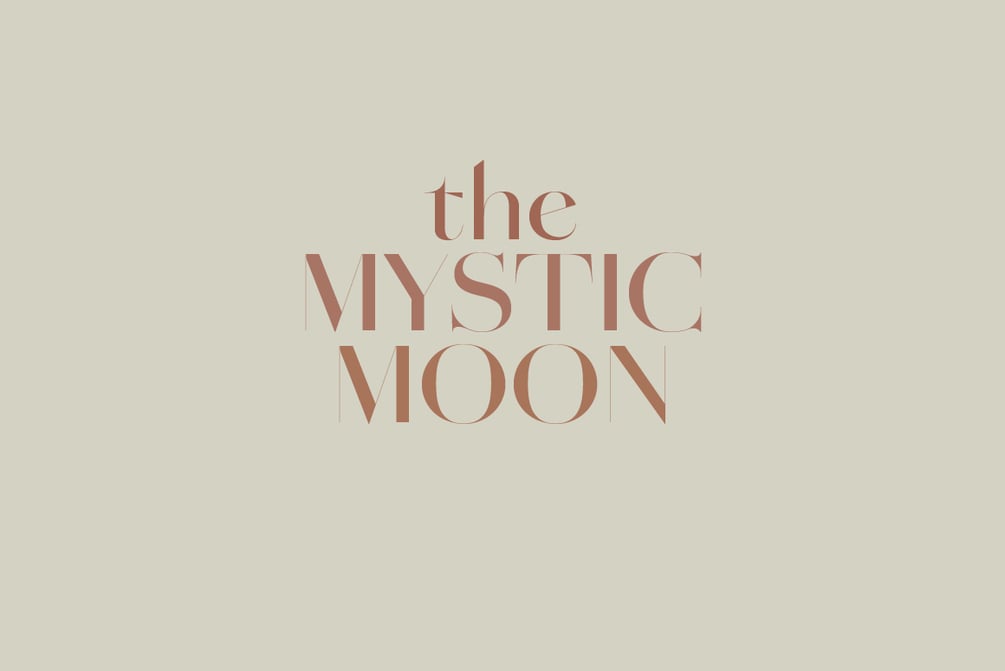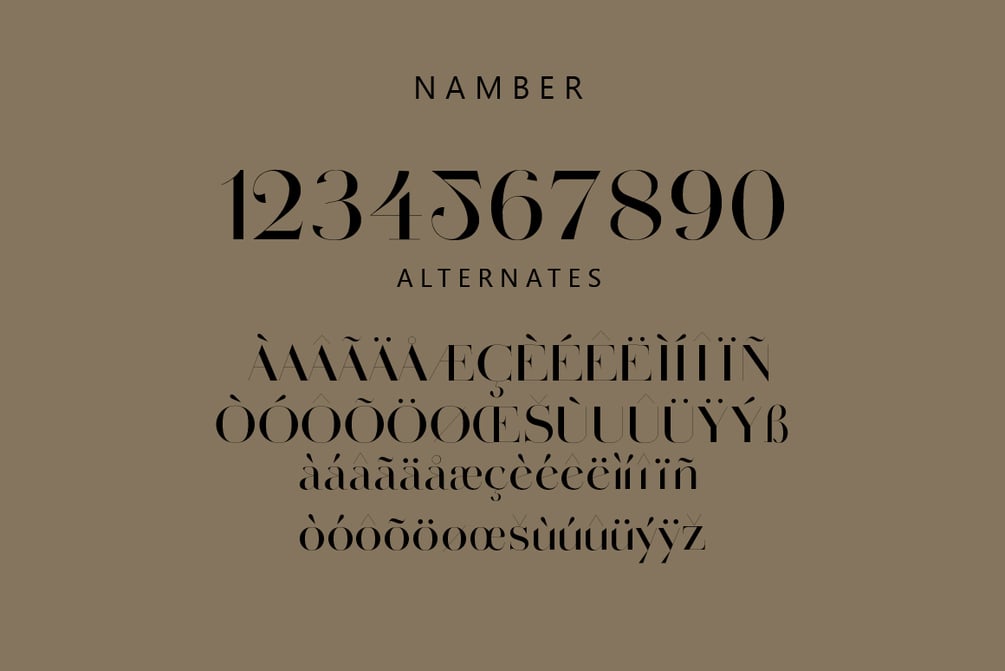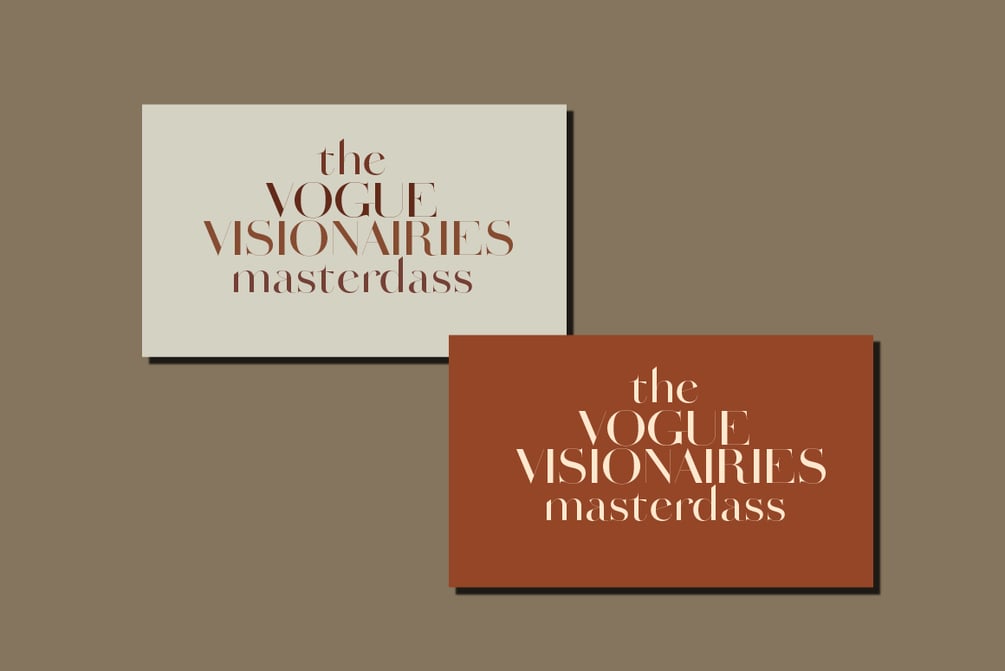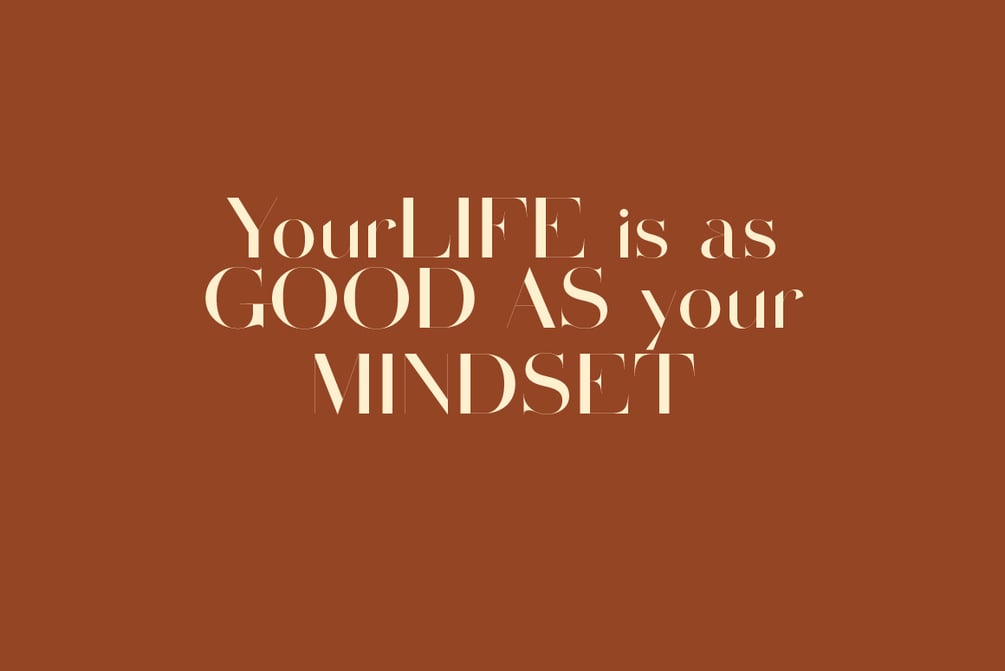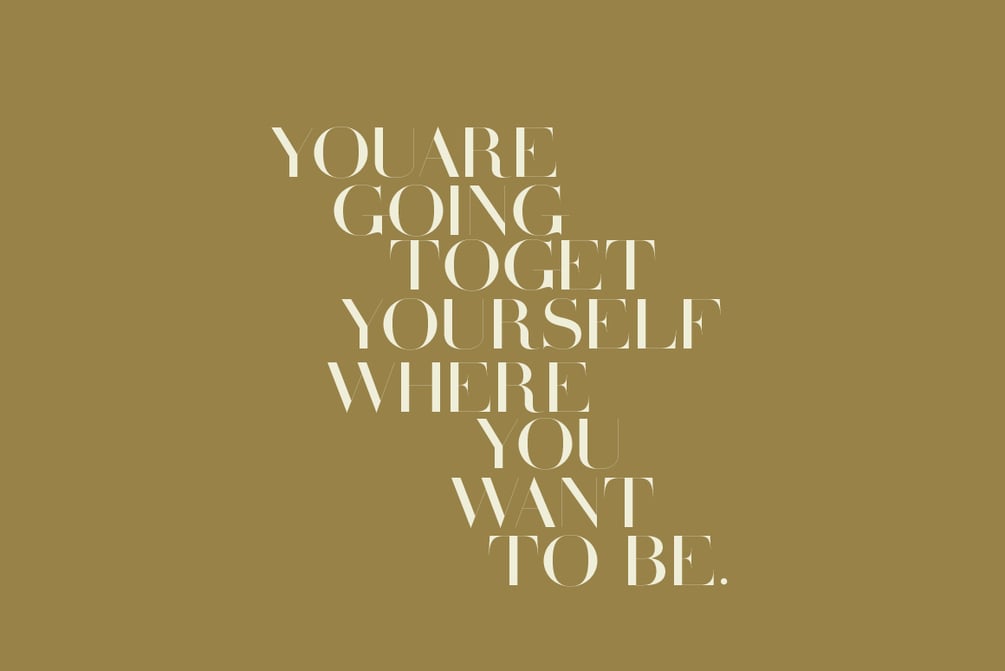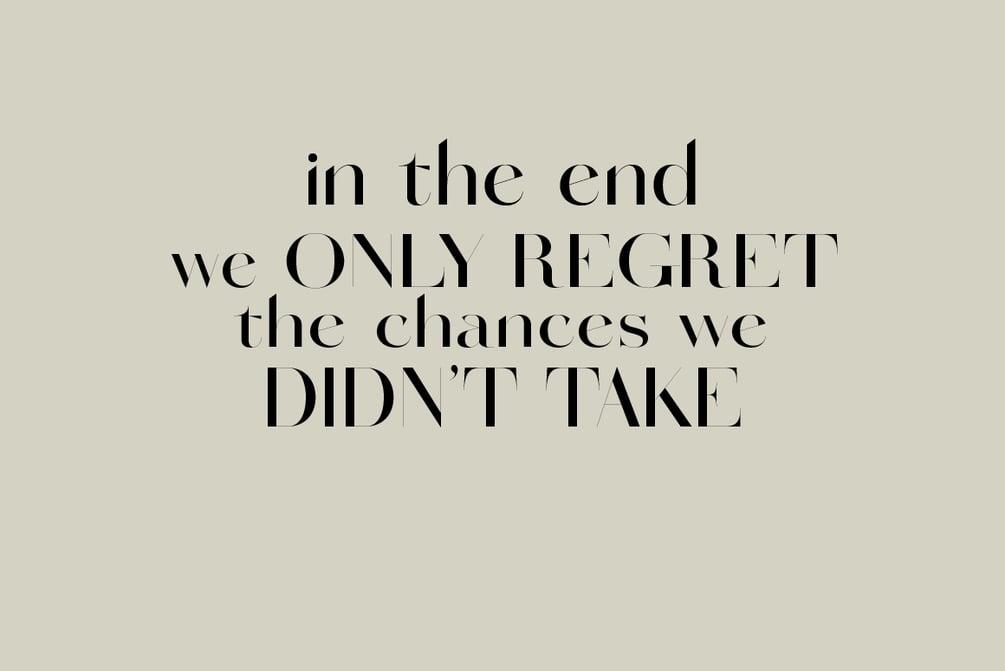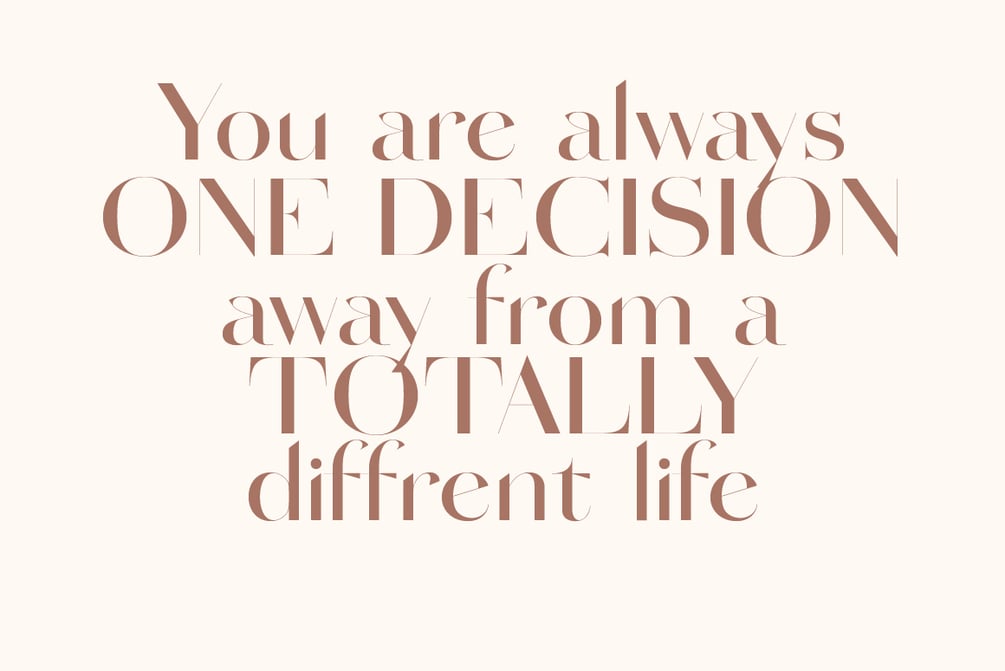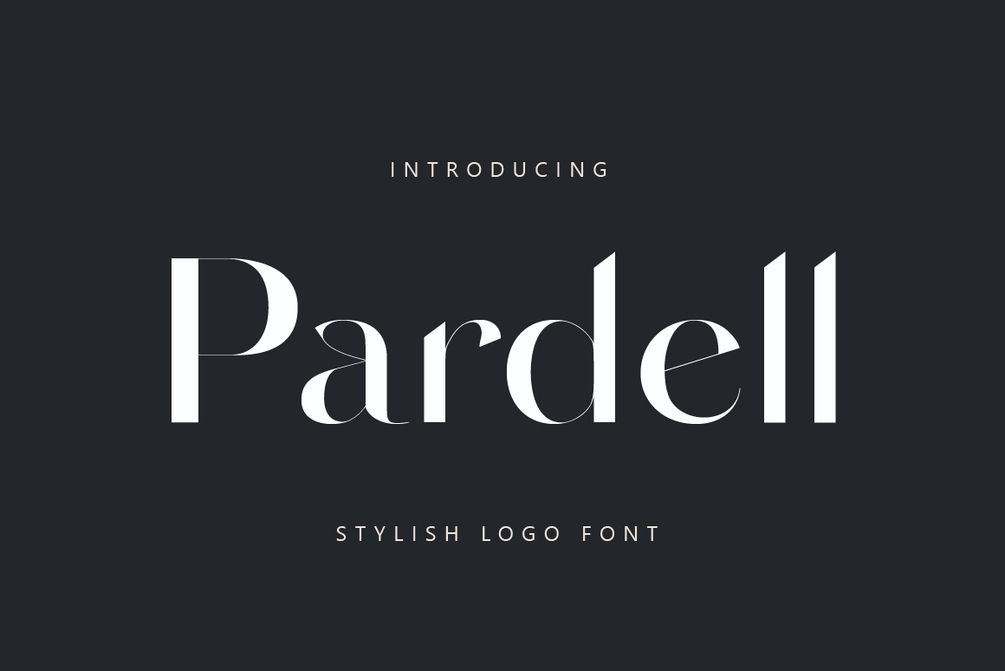
Pardell - Stylish Display Font
Pardell Font is a modern and stylish serif typeface designed with elegance and sophistication in mind. Featuring high contrast strokes, sleek curves, and refined details, it delivers a luxurious and contemporary look. Perfect for branding, fashion, editorials, and logo design, Pardell combines timeless serif charm with a modern minimalist edge. Its clean lines and unique letterforms make it an excellent choice for creating distinctive visual identities that stand out.